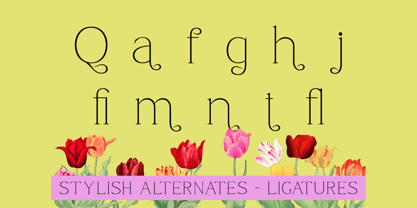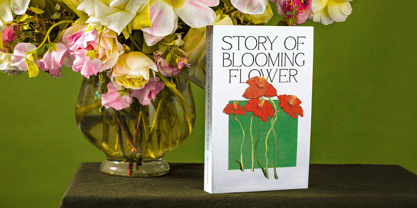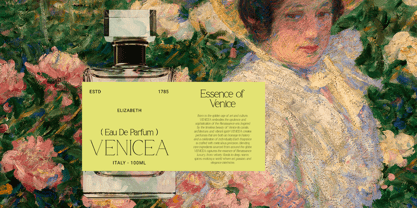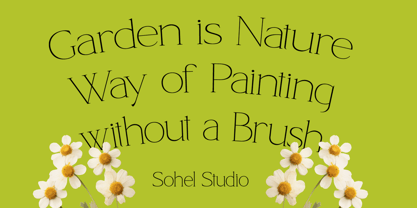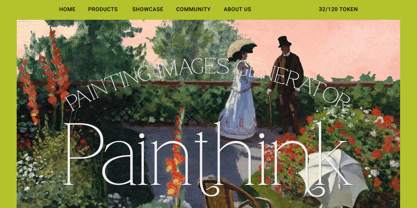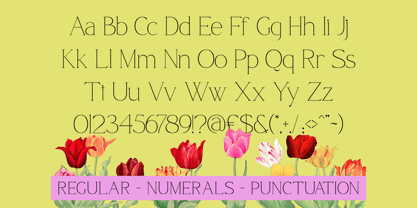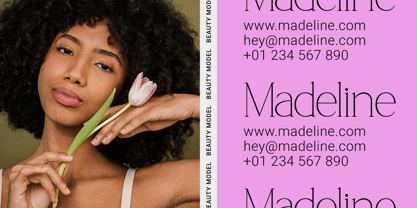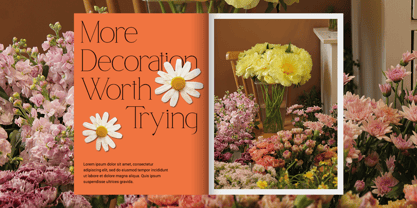
Qamora
by Sohel Studio
The Qamora Font Family was designed by Akhmad Husain Rifa'i and published by Sohel Studio. Qamora contains 1 styles. More about this family
Qamora is a refined serif font that exudes timeless elegance and delicate sophistication. With a blend of sharp high-contrast strokes and graceful curves, it creates a luxurious impression that feels equally classic and modern. The font’s graceful terminals and tall letterforms evoke a sense of refinement, ideal for designs that aim to communicate taste, style, and femininity.
Designed for the world of high-end editorial, fashion branding, and lifestyle content, Qamora brings a graceful flair to Instagram quotes, magazine titles, beauty packaging, and elegant wedding stationery. Its thin serifs and generous spacing create a breathable, light visual texture that feels upscale and effortlessly stylish.
Qamora’s structure is rooted in classic serif traditions with a modern twist—featuring subtle calligraphic hints that add warmth without sacrificing professionalism. This makes it a versatile typeface that feels equally at home in luxurious print media or minimalist digital design.
Best used in high-impact headlines, brand logos, editorial layouts, and fashion-forward promotional graphics, Qamora is a go-to choice for designers who want to create a polished, luxurious look with an emotional connection.
Make every word whisper elegance. Qamora is the ultimate serif font for brands and creatives who crave sophistication without stiffness—bringing a modern feminine charm to your designs with every letter.
Why Qamora Stands Out:
• ✦ Elegant serif structure with high-contrast strokes
• ✦ Thin, tall letterforms with sophisticated curves
• ✦ Ideal for luxury, lifestyle, fashion, and editorial use
• ✦ Beautifully balanced for modern branding or romantic invitations
• ✦ Delivers premium aesthetics with minimal effort
• ✦ Pairs well with neutral palettes, soft photography, and delicate visuals
• ✦ Designed for impactful headlines, logos, and titles
• ✦ Excellent legibility while maintaining a refined personality
Designers: Akhmad Husain Rifa'i
Foundry: Sohel Studio